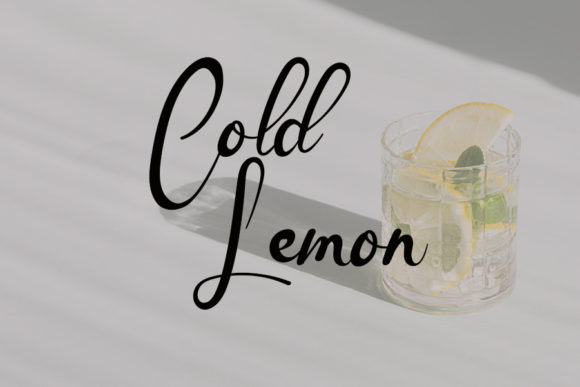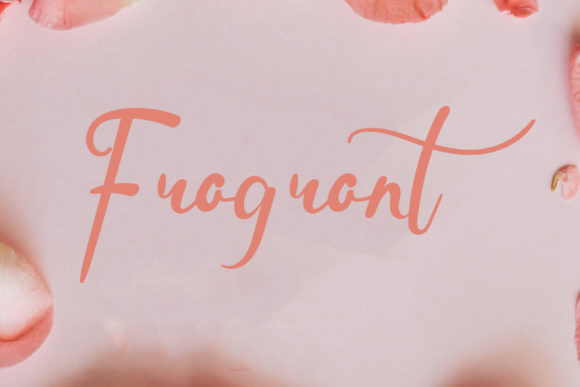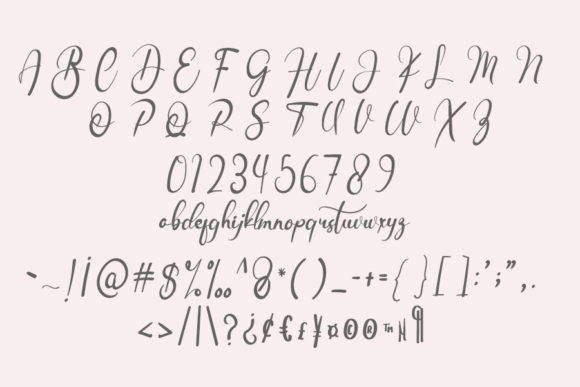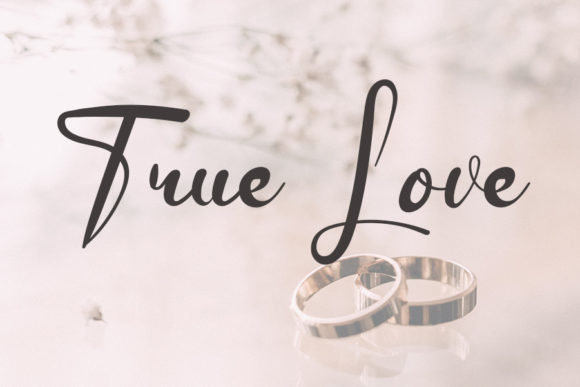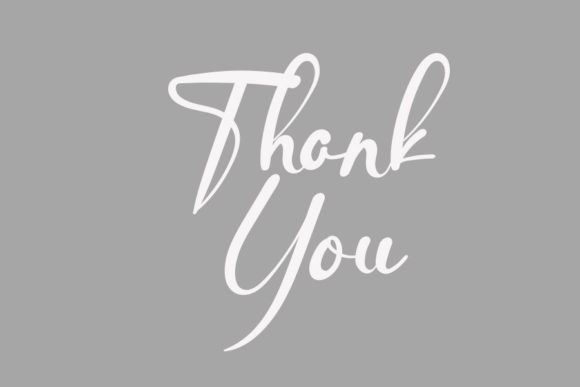
About Feisty Bunny Font
Introducing Feisty Bunny, a friendly handwritten font thoughtfully crafted to become a true favorite. This font seamlessly blends classy calligraphic influences with a contemporary and fresh feel, creating a unique and approachable aesthetic.
Feisty Bunny exudes a friendly charm that makes it versatile for a variety of design projects. Whether you’re working on invitations, branding materials, or any creative endeavor, this font brings a warmth and character that resonates with a broad audience.
While maintaining its roots in classic calligraphy, Feisty Bunny incorporates a modern and fresh touch, making it suitable for both timeless and current design trends. The careful design of each letter ensures a balance between elegance and a welcoming, approachable vibe.
Consider Feisty Bunny as your go-to font when you want to infuse a touch of friendliness and contemporary flair into your projects. Its unique blend of influences allows it to stand out, making it a delightful choice for creating memorable and engaging designs.
In summary, Feisty Bunny is more than just a font; it’s a friendly handwritten companion designed to be a true favorite. With its classy calligraphic influences and contemporary freshness, this font adds a distinctive charm to your creative works, ensuring a warm and inviting appeal.